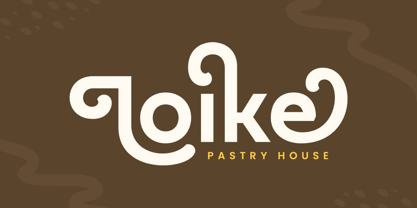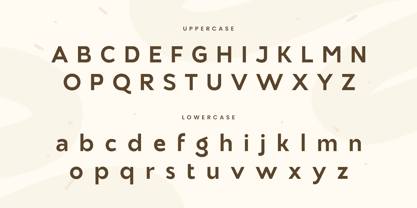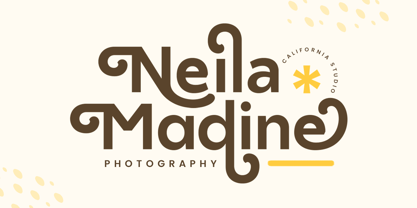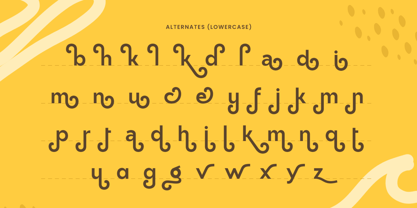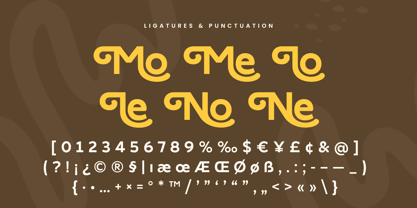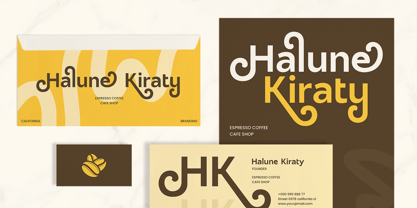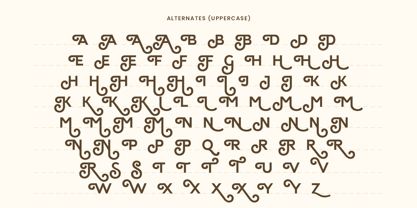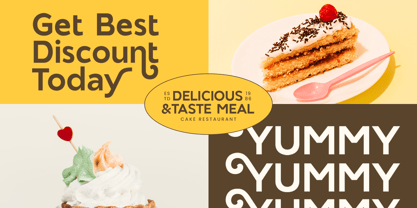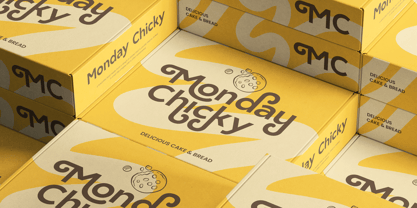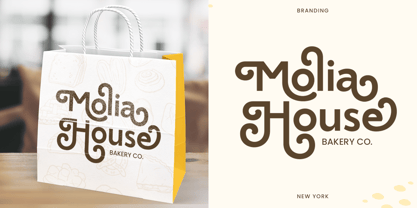
Monga
by Sensatype Studio
The Monga Font Family was designed by Zamroni Hamzah and published by Sensatype Studio. Monga contains 2 styles and family package options.
Monga - Modern Fancy Logo Font
Monga is a modern fancy font that perfectly balances elegance and creativity. Its stylish design is ideal for logos, branding projects, and any creative work that requires a touch of sophistication. Monga’s unique character and contemporary flair make it stand out, adding a trendy vibe to your designs.
Inspired by the fusion of modernity and high-end fashion, Monga is designed to be both eye-catching and versatile. Whether you’re working on a logo, invitation, or social media graphics, this font will give your project a polished and luxurious look.
With Monga’s ligatures, alternate characters, and multilingual support, you can explore endless design possibilities. Its sleek lines and refined details make it an excellent choice for anyone looking to create a memorable visual identity.
Monga Modern Fancy Logo Font Features:
• Unique Ligature & Alternate Characters Ready
• Punctuation, Number, and Symbol
• Uppercase and Lowercase
• Multilingual Support
• Opentype Features